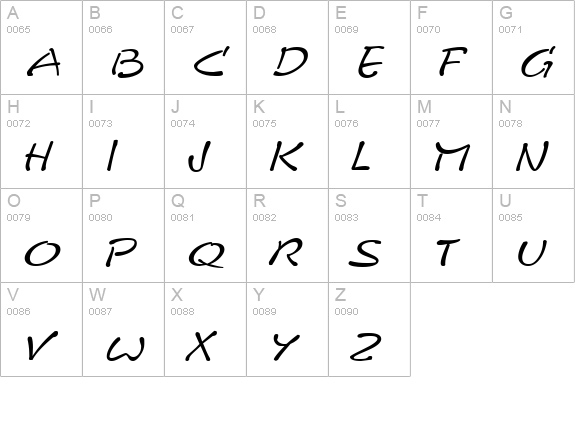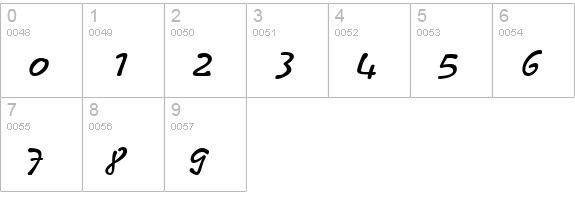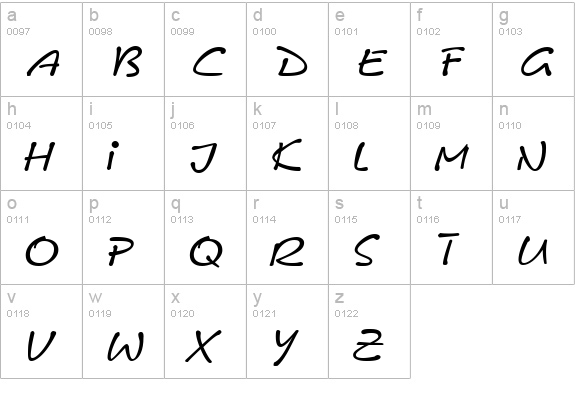
Pyxidium Quick Font Details
Pyxidium Quick font is a modern and stylish typeface that exudes elegance and sophistication. With its sleek lines and balanced proportions, this font is perfect for a wide range of design projects, from branding to editorial design. The versatility of Pyxidium Quick font makes it suitable for both digital and print applications, ensuring that your message will always stand out. What sets Pyxidium Quick font apart is not only its aesthetic appeal, but also the fact that it is available for free download at FontsMarket.com. This means that you can access this high-quality font without any cost, making it a valuable addition to your design toolkit. Whether you are working on a personal project or a commercial endeavor, Pyxidium Quick font offers you the opportunity to elevate your designs with its unique flair and sophistication. Download Pyxidium Quick font today and explore the endless possibilities it has to offer.